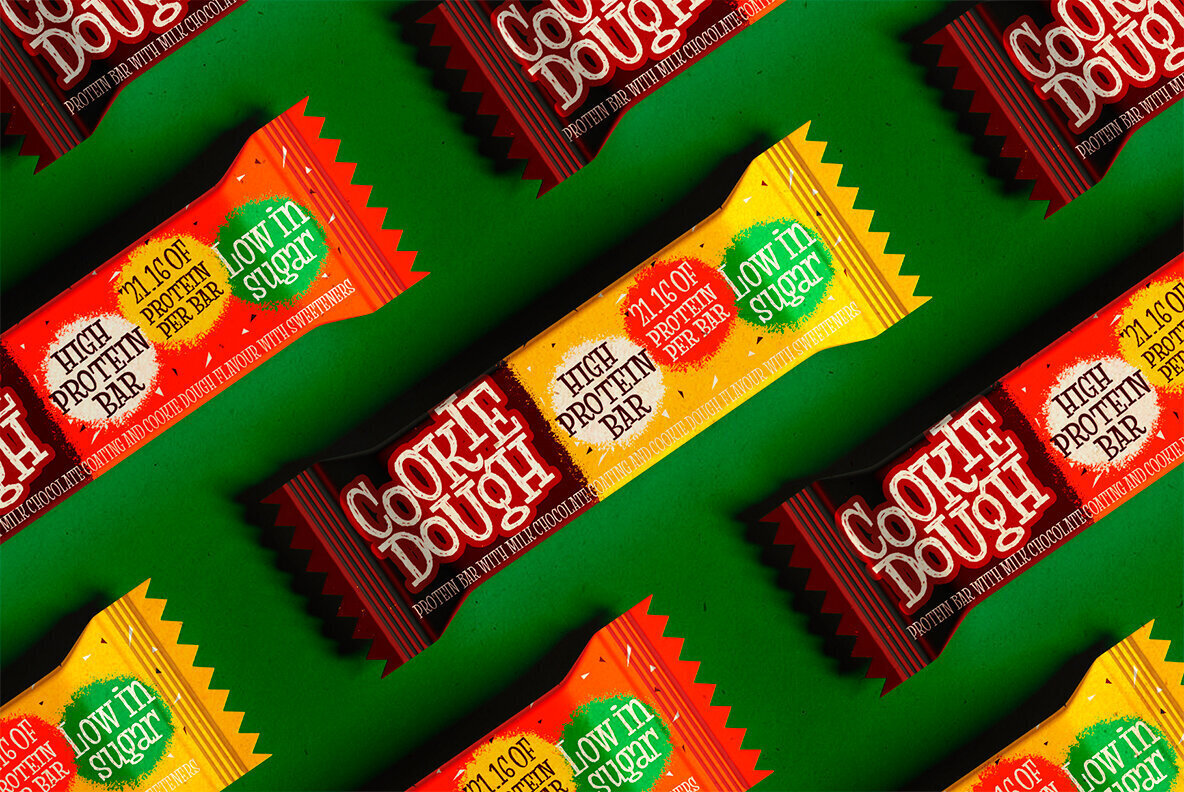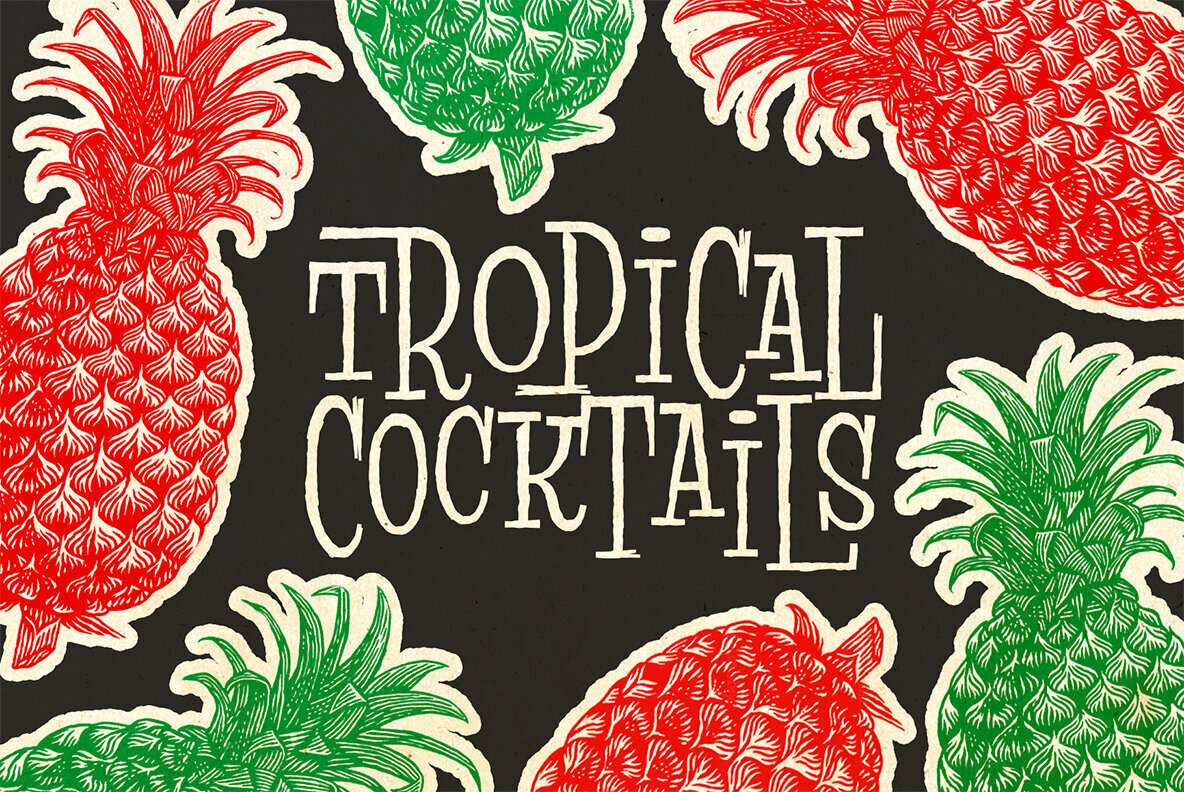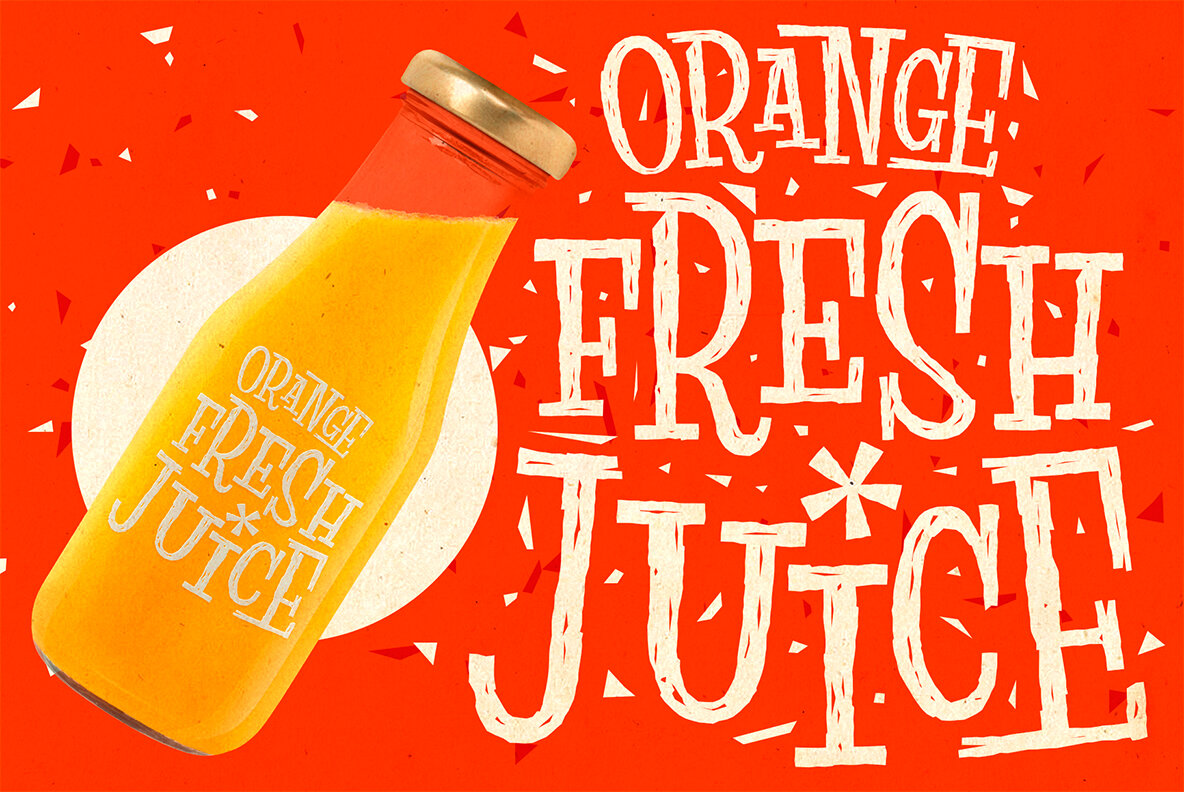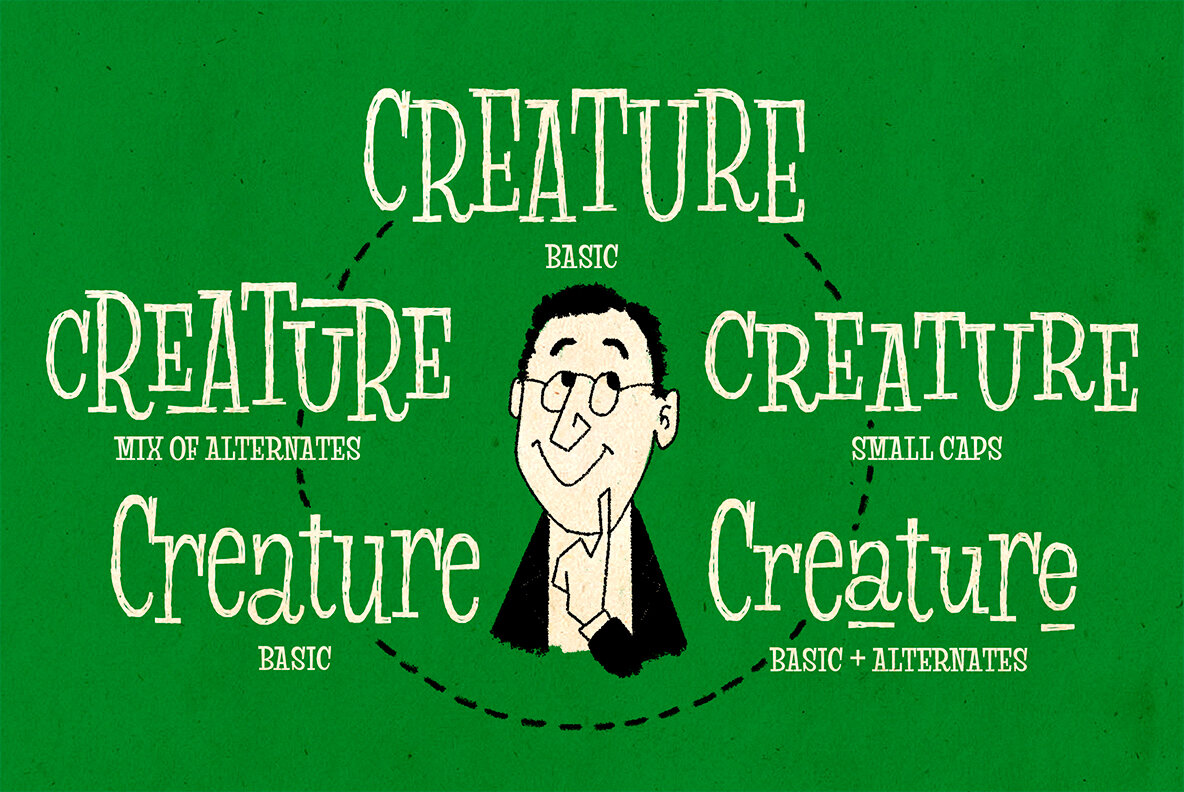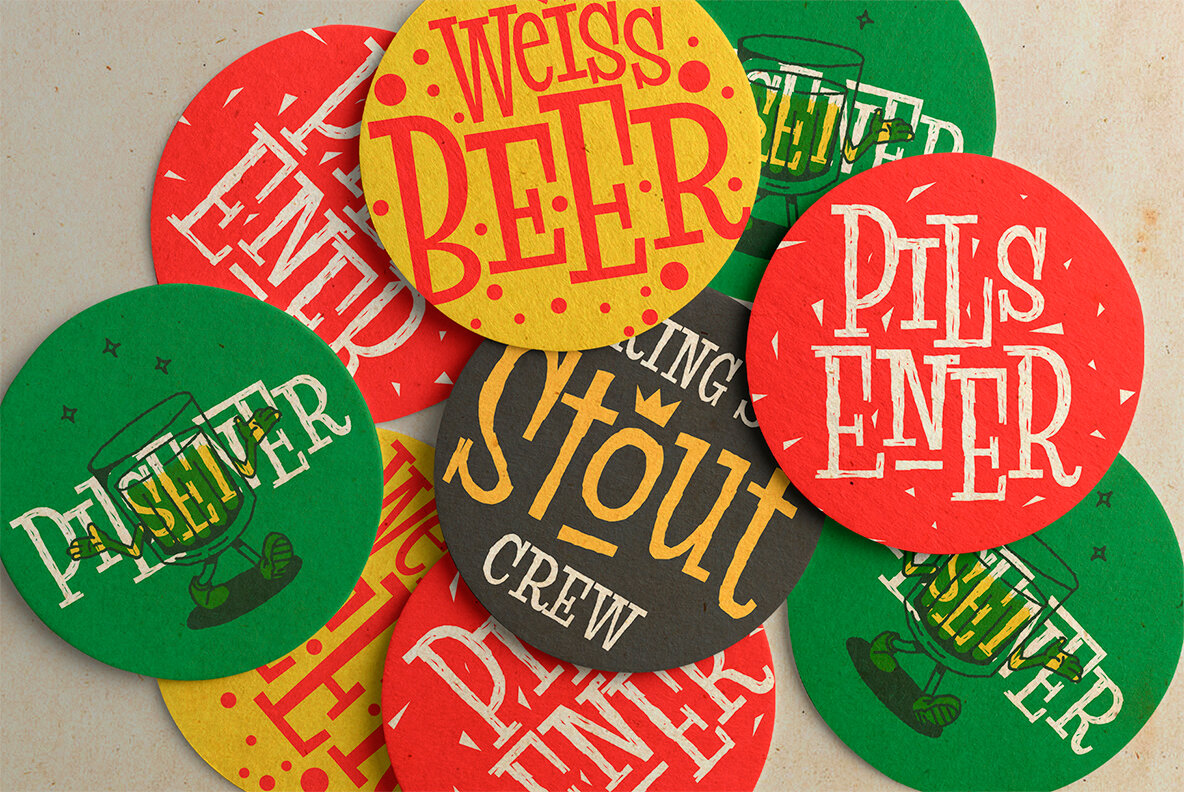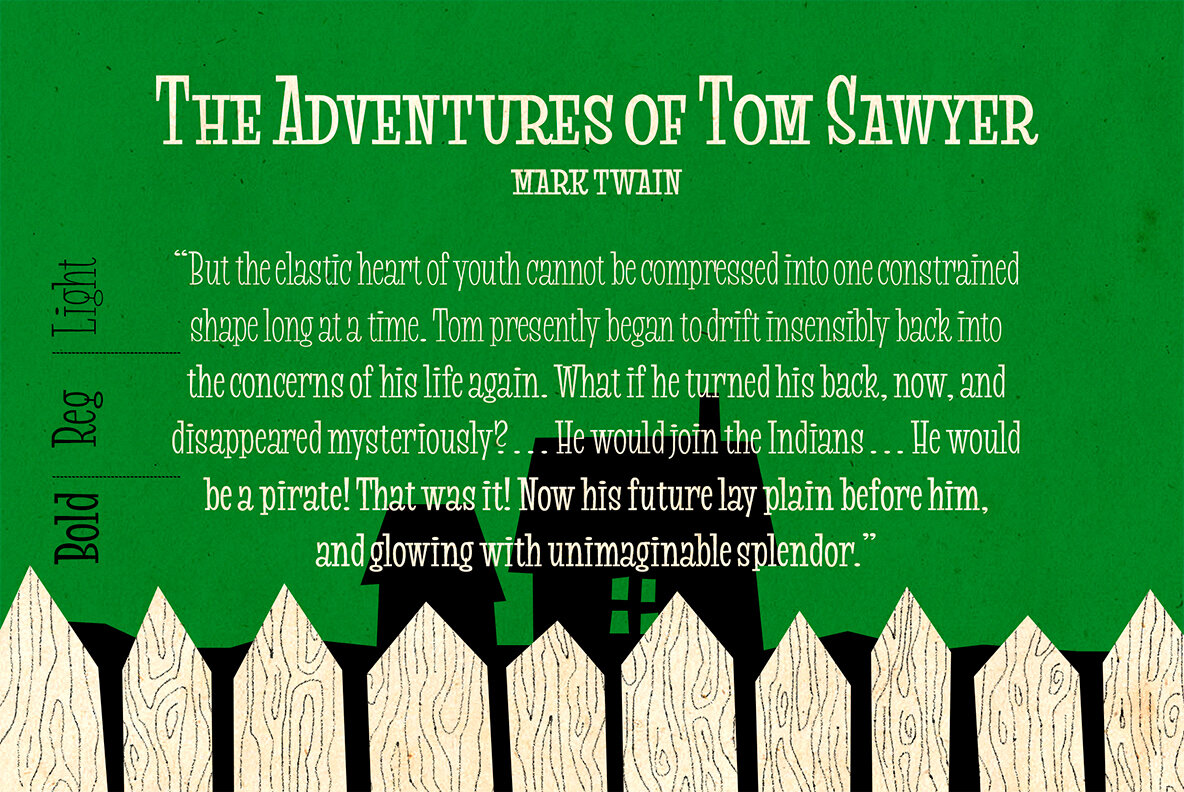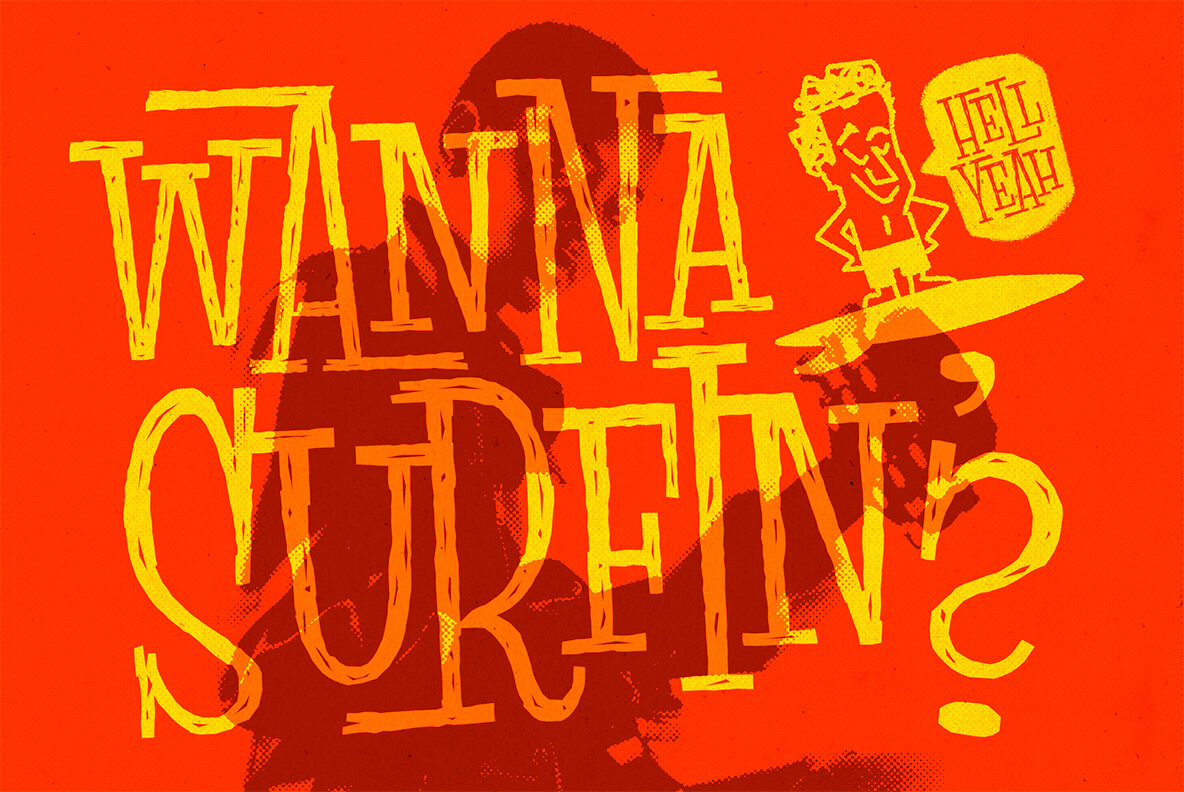
VVDS Suffer Font
Do you hear that sound of Dick Dale's guitar? Here it is! Introducing you a new font family with retro surf rock vibes! Straight outta retro vinyl covers and surf gig posters to your font collection! We're all missed the sun, so grab this family and get some of the summer vibes. No matter what your next design project – a tiki t-shirt collection / summer rock festival or gigs / greeting cards / or a header for your new zine, - you'll get your goals with this family. A lot of alternates will give you a hand written's mood and absolutely unique typographic style. Up to 10 styles for some of them. Open Type Features as Stylistic Alternates, Small Caps and Fractions. Three styles: Clear, Roughen and Scratched. Three widths: Light, Regular and Bold.